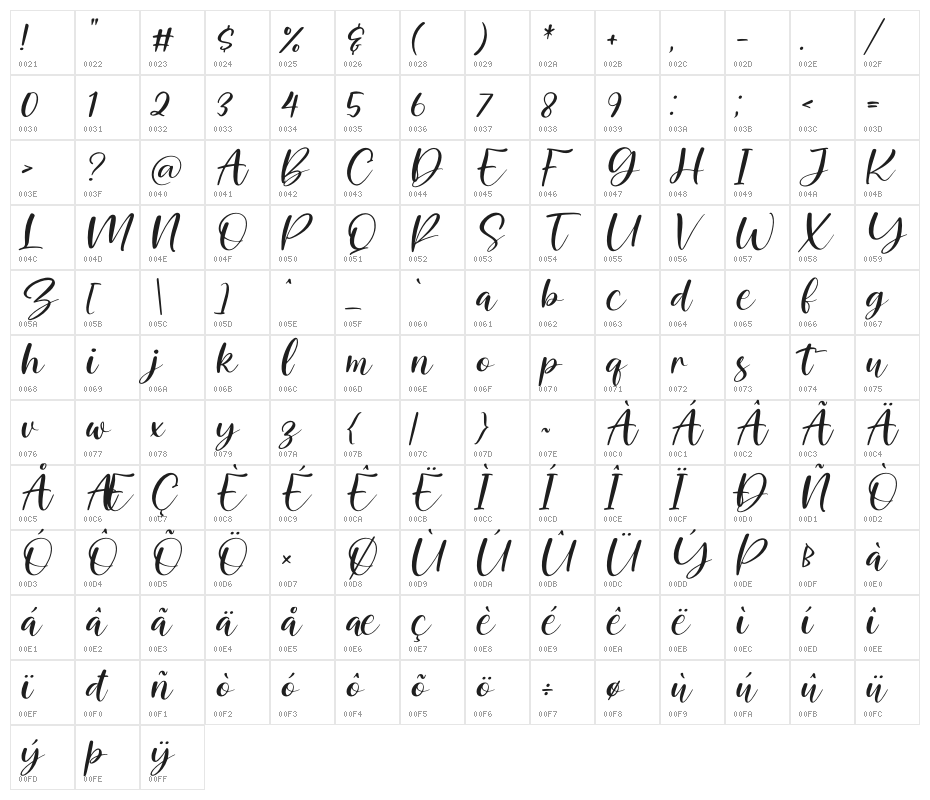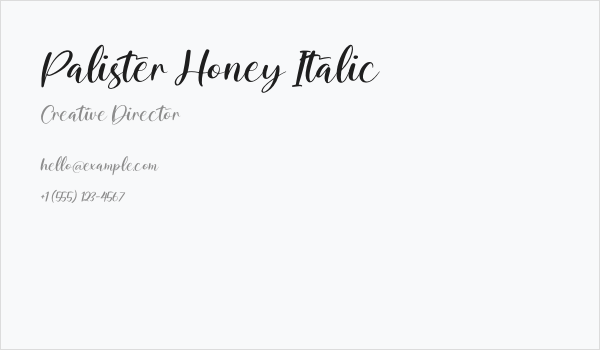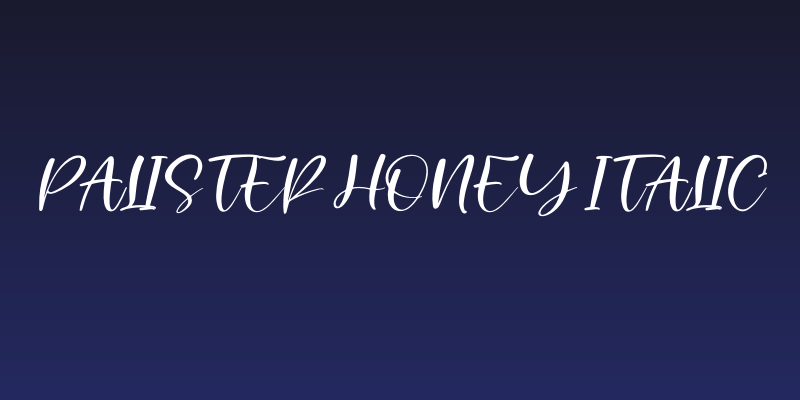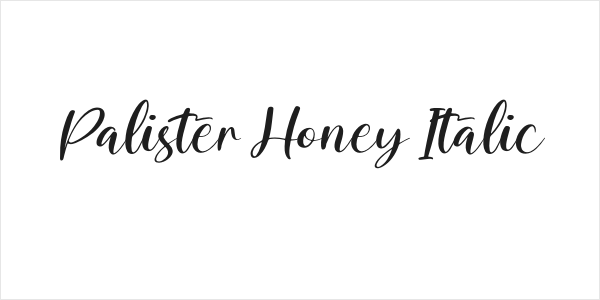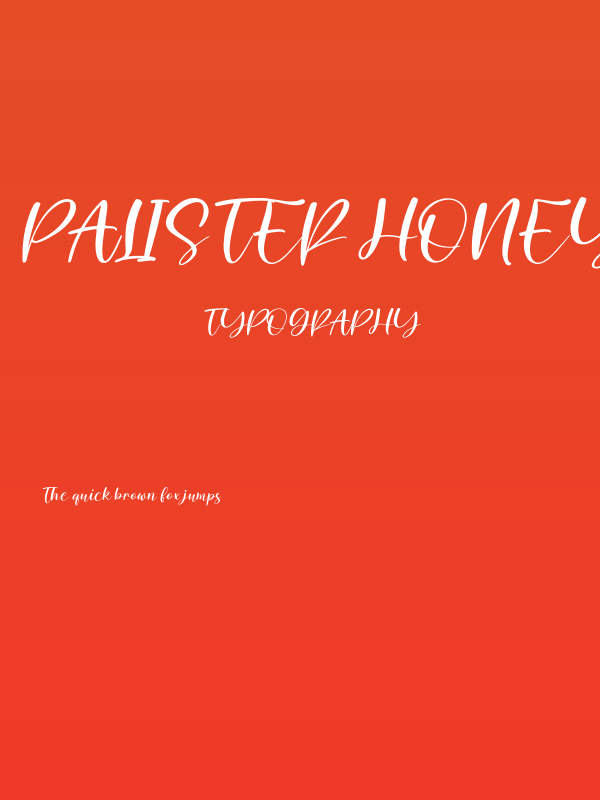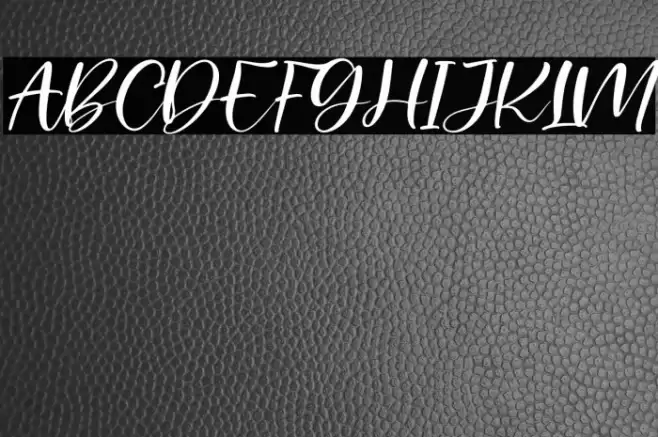
Palister Honey Italic Font
Palister Honey Italic Description
This font features a flowing, cursive style with elegant, sweeping strokes that convey a sense of sophistication and fluidity. The letters are interconnected, creating a seamless and harmonious appearance. The uppercase characters are bold and prominent, while the lowercase letters maintain a consistent rhythm and balance. The numerals are designed to match the overall aesthetic, with curves and angles that complement the script style. Special characters are integrated smoothly, maintaining the font's cohesive look. This font is ideal for projects that require a touch of elegance and personal flair.
| Overall Style | Elegant, Decorative |
| Use Case | Logos, Invitations, Branding |
| Proposed Projects | Ideal for wedding invitations, greeting cards, branding, and elegant logos. |